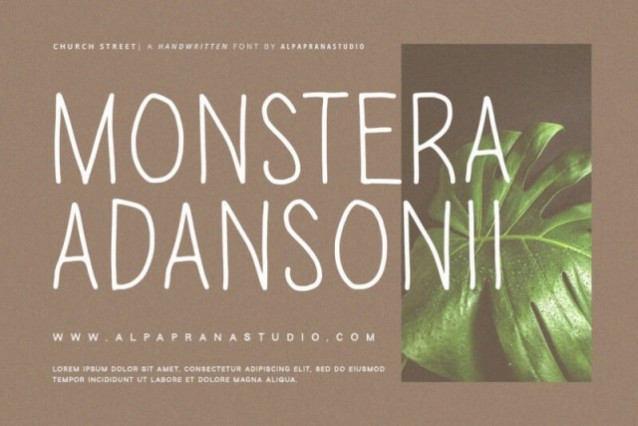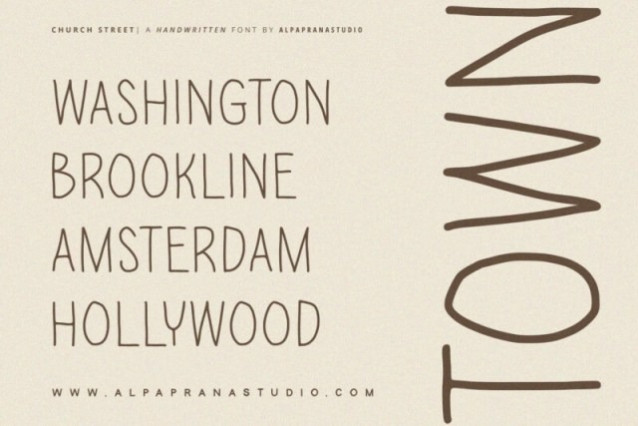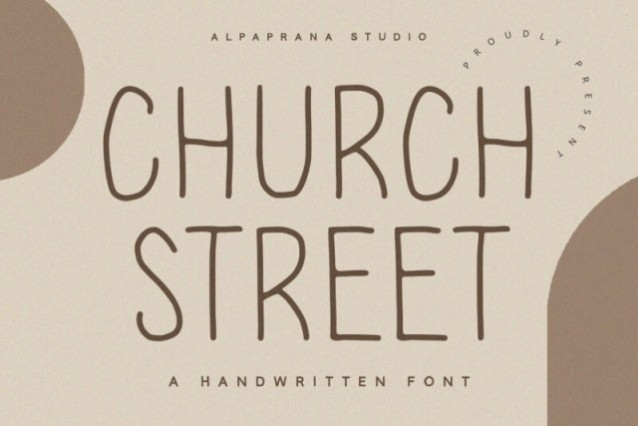
Church Street Font
Church Street Font is a handwritten display font with natural and modern feels. It will be perfectly used for Branding, Logo Design, Lettering, Logotype, Clothing, Poster, magazine, packaging, posters, shopping bags, t-shirts, book covers, photography, special events, and other design projects.